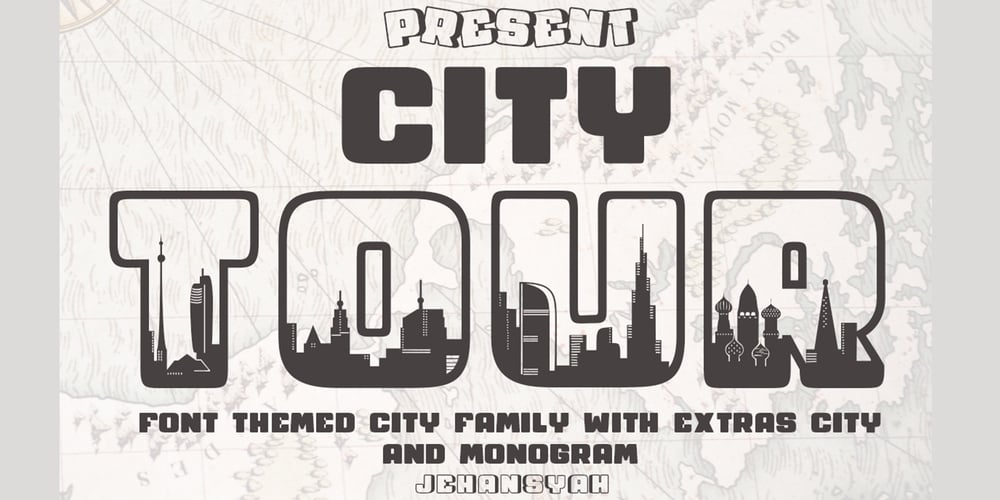
City Tour Font Family was designed by Ibram Syah and published by Jehansyah. City Tour contains 10 styles and family package options. City TourThis theme font is very beautiful when used as wall hangings or as your trade product, make logos, symbols, and several other design works, there are several families that you can choose and adjust to your design, make sure this will change the way you see the font design more modern